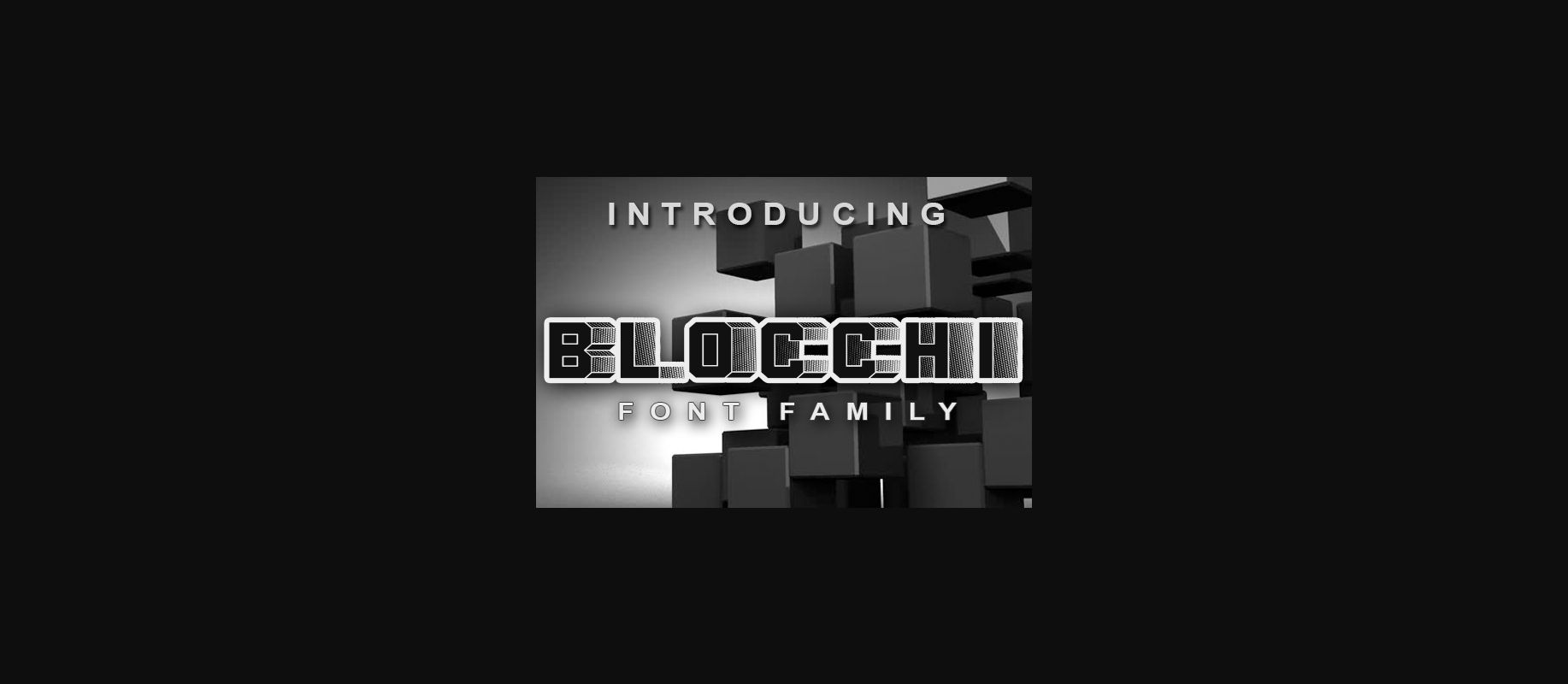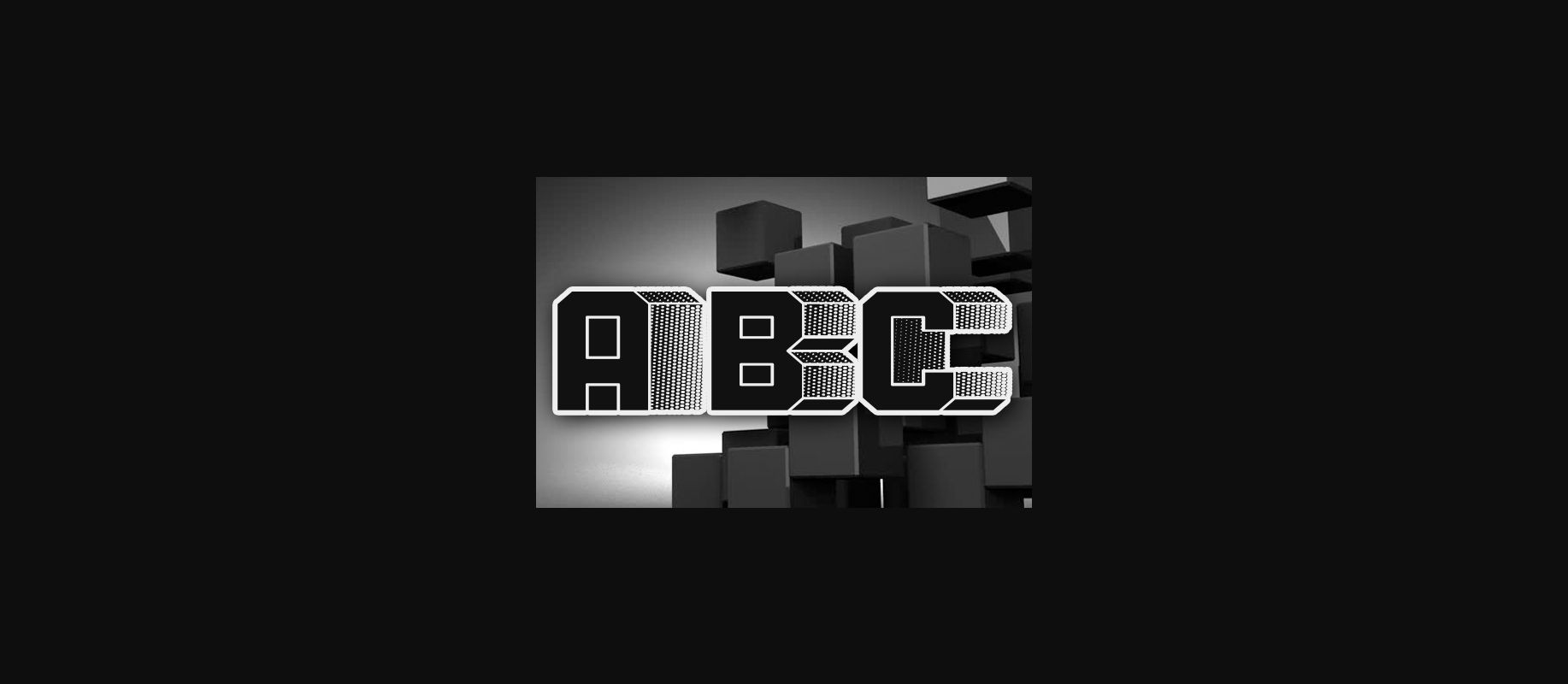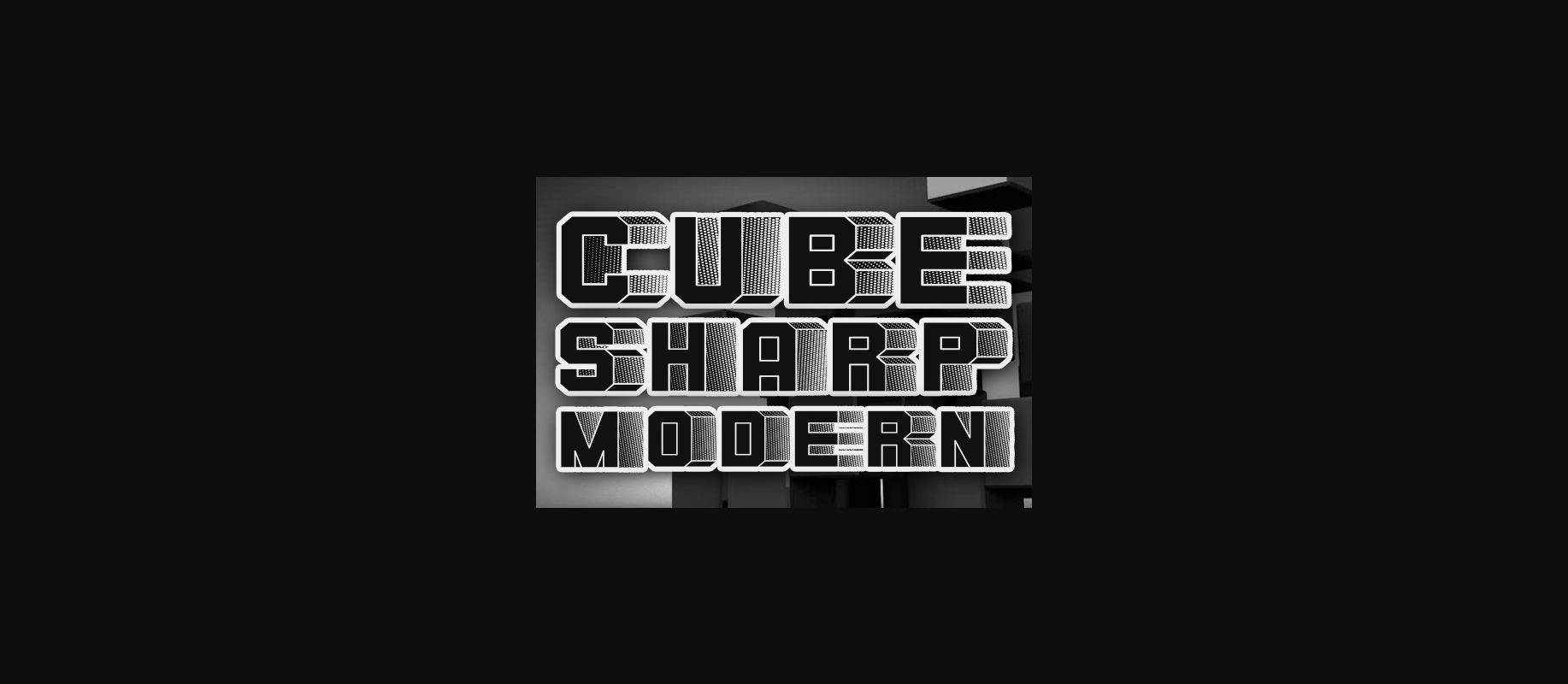
HomeDecorative FontsBlocchi Font Decorative Fonts Blocchi Font FacebookTwitterPinterestWhatsApp 1 of 5 ... Blocchi Font Poster 2... Blocchi Font Poster 3... Blocchi Font Poster 4... Blocchi Font Poster 5... About Blocchi Font Blocchi is a unique decorative font. It has a regular and reverse versions. It will give your projects a special retro touch! DOWNLOAD NOW 160 0 People also explored Planner Holiday Font Nachel Victoria Font Citrus Cycle Script Font Casual Script Font Arnon Font Signature Font Playground Font Fallingome Font Affordable Font Hot Chocolate Font Fontix Font Hello Friday Font TagsBlocchiBlocchi Font Previous articleSoccer FontNext articleMangalica Font LEAVE A REPLY Cancel reply Comment: Please enter your comment! Name:* Please enter your name here Email:* You have entered an incorrect email address! Please enter your email address here Website: Save my name, email, and website in this browser for the next time I comment. Unlock Endless Creativity with the FREE September Clipart Huge Bundle (Valued at $700!) Personal Use Free True Love Personal Use Free Read more Maxwell Personal Use Free Read more Almonte Personal Use Free Read more Delions Personal Use Free Read more BLOG To increase your work productivity, choose the most readable fonts. In today's fast-paced work environment, where digital communication and information consumption are integral to our daily routines, the choice of fonts can significantly impact... The 10 Best Handwriting Fonts to Add Personality to Your Designs Free Fonts Risk: Why Free Fonts Can Be Dangerous for Designers Where to Buy American Fonts Online in 2024